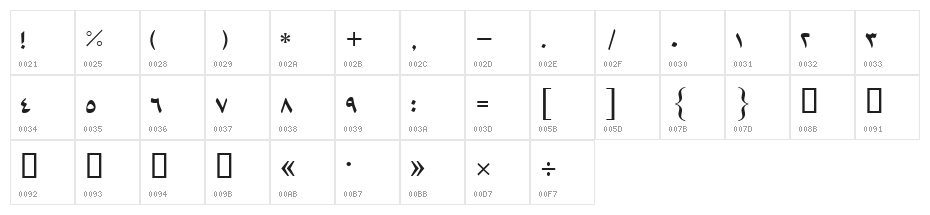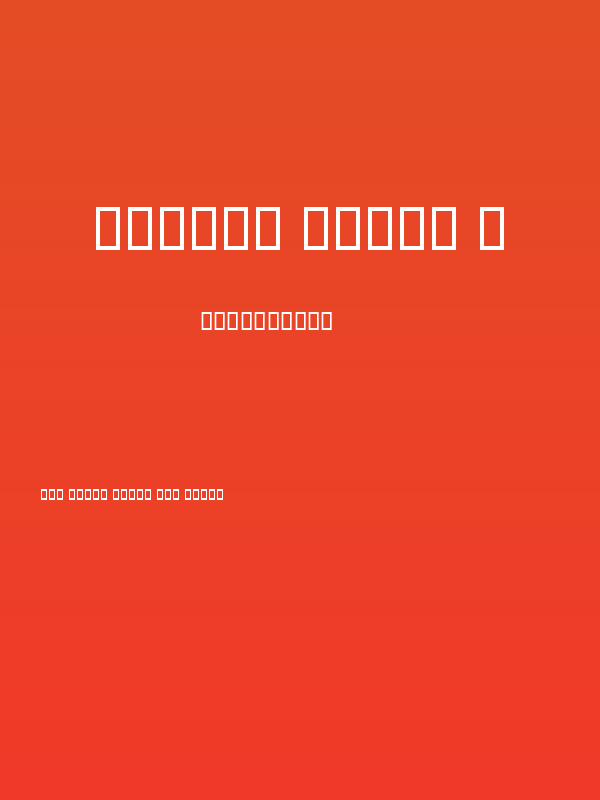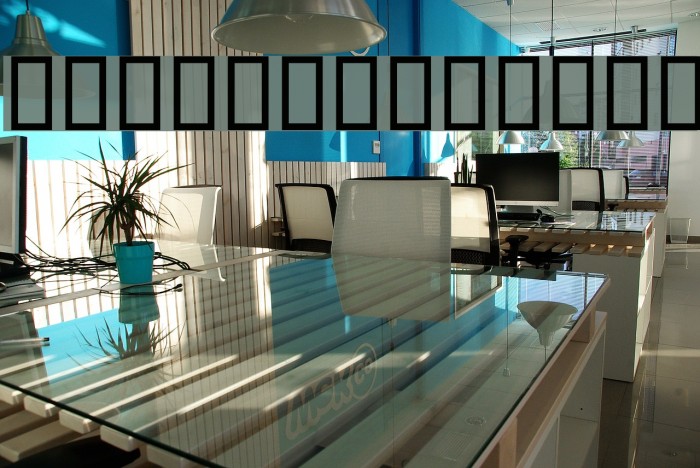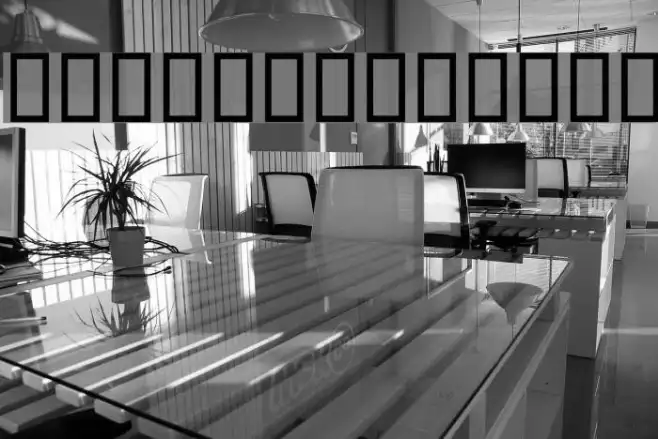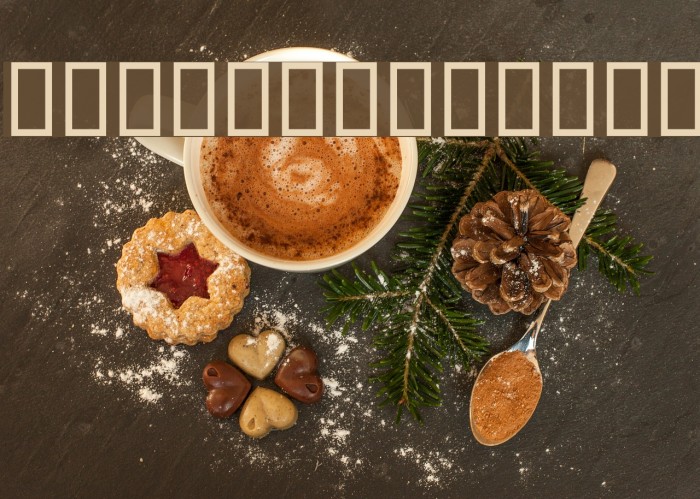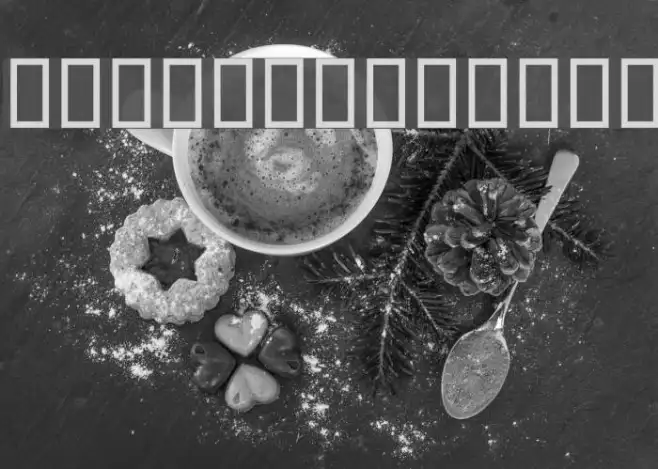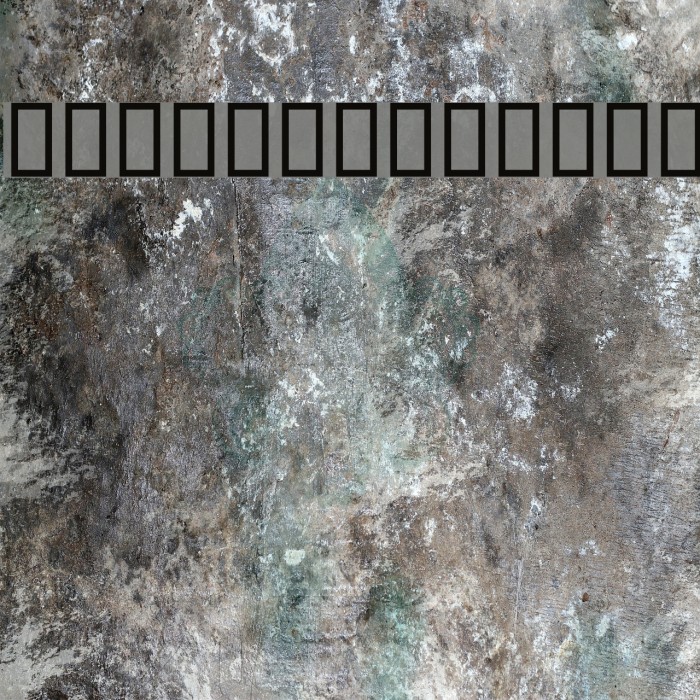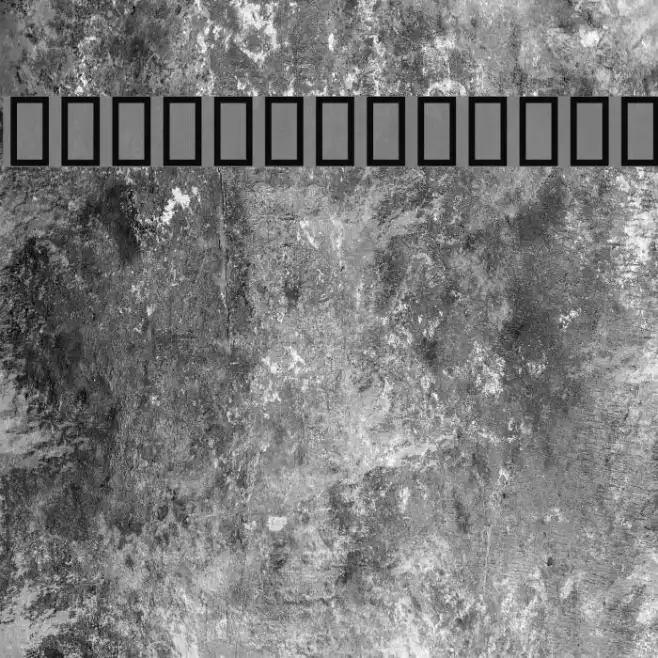
Arabic Style I Font
گالری فانت فارسی پژوهش آريانا - only compatible with Farsi and Arabic
| Cas d'utilisation | Logos, Posters, Artistic projects |
| Projets proposés | Ideal for cultural event posters, artistic designs, branding for Middle Eastern cuisine, or any project seeking an exotic and elegant touch. |